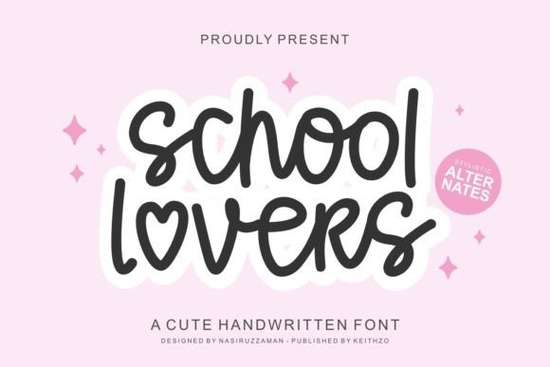
If you're looking for a script font that feels handwritten and full of movement, the School Lovers Font is worth a closer look. Its irregular, wavy letterforms give off a charmingly handmade vibe – perfect for projects that need a touch of sweet, playful personality. Whether you're designing for a small business, a side hustle, or a personal craft, this font brings an authentic “real pen” feel without sacrificing readability.
What kind of projects does School Lovers Font work best for?
This font shines in places where you want to stand out with a cute, almost nostalgic look. Because the letters are uneven and swing a little, they feel natural and friendly. Great uses include:
- Branding – logos and packaging for bakeries, children's boutiques, handmade soap shops, or any brand that wants a soft, approachable image.
- Handicrafts – cards, scrapbooks, bullet journal headers, and product labels for Etsy or craft fairs.
- Social media – Instagram quotes, Pinterest pins, and Facebook covers that need a warm, handwritten feel.
- Print-on-demand – t-shirts, mugs, tote bags with a cute saying or name design.
How do I access all the special glyphs and ligatures?
The font is PUA encoded, which means you can easily access extra characters like swashes, alternate letters, and connected ligatures. In most design software (like School Lovers Font works well in Canva, Illustrator, or Photoshop), you simply open the Glyphs panel and click on the variation you want. No complicated workarounds – just copy and paste or drag them into your text. This gives you control over the exact look of each word, so you can avoid repeating the same shape twice.
How does School Lovers compare to other script fonts?
Most script fonts lean either very formal (like calligraphy) or very uniform (like digital handwriting). School Lovers sits in a sweet spot: it’s irregular but not messy. The waviness is consistent enough to be readable, yet playful enough to feel unique. If you've tried other playful scripts and found them too bouncy or too plain, this one balances both.
Can I use it for business logos?
Absolutely. The font's charm works especially well for small business logos – think coffee shops, bakeries, beauty salons, or tutoring services. Because it’s not overly decorative, it stays legible even at small sizes. Pair it with a clean sans serif for a professional yet friendly look. For example, try combining it with the Bright Summer Duo Font which includes a matching sans serif style, giving you a ready-made duo for branding.
What about seasonal or holiday projects?
The font has a cozy, year-round appeal, but it's especially lovely for Valentine's Day, back-to-school, and spring designs. If you need a festive script for winter, the Wonderful Christmas Font is another option with a similar cute style but with holiday flourishes.
- ☐ Test readability – try it in a short sentence at 24pt and 12pt to make sure the waviness doesn't affect legibility in smaller sizes.
- ☐ Look at the alternate characters – open the glyphs panel and pick letters with longer tails or swashes to add flair to key words (like the first letter of a name).
- ☐ Pair with a neutral background – the font stands out best on solid, light backgrounds, especially when used in social media graphics or product labels.
- ☐ Try a color shift – because the letters have natural inky movement, using a slightly off-white or pastel color can enhance the handmade feel.